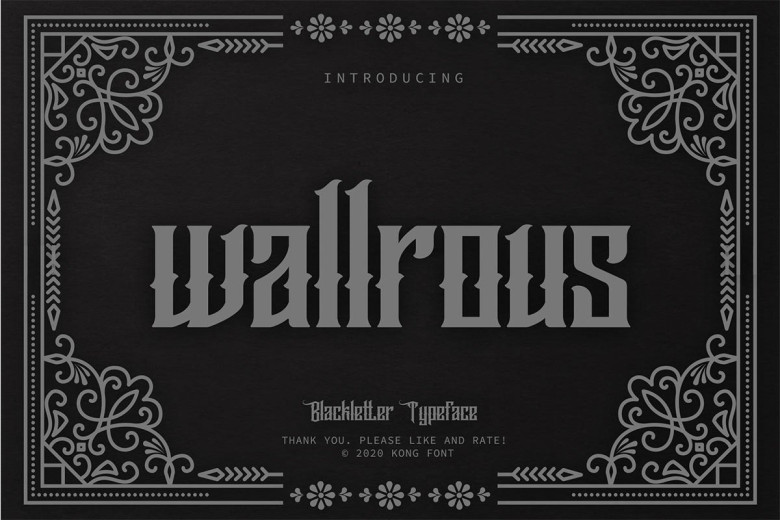
Wallrous Blackletter Tattoo Typeface
Wallrous Font is a blackletter typeface inspired in tattoo letters, chicano culture and street art. It works well with normal size text, but it works even better for large displays, short words, or even just to incorporate a few or single characters in a design.